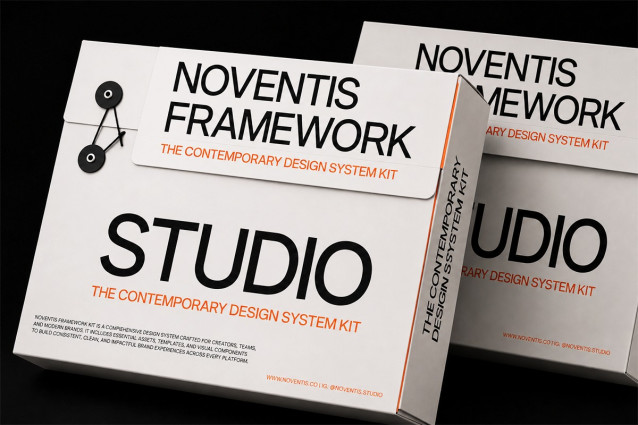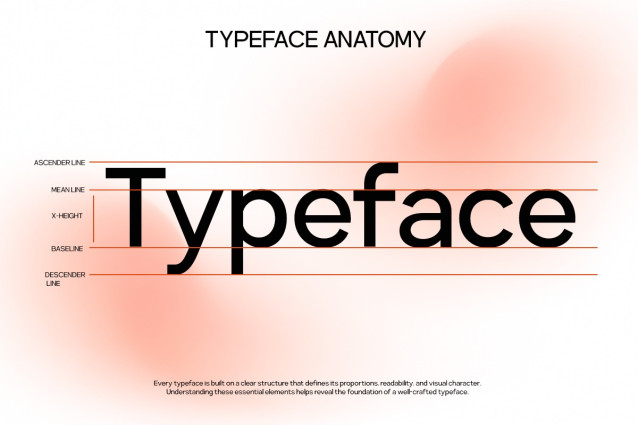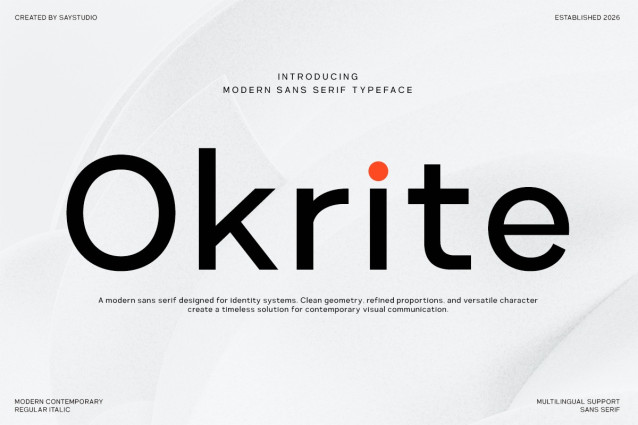
Okrite – Modern Geometric Sans Serif Font
Okrite is a modern geometric sans serif font family designed for clean branding, editorial layouts, technology products, and contemporary visual identities.